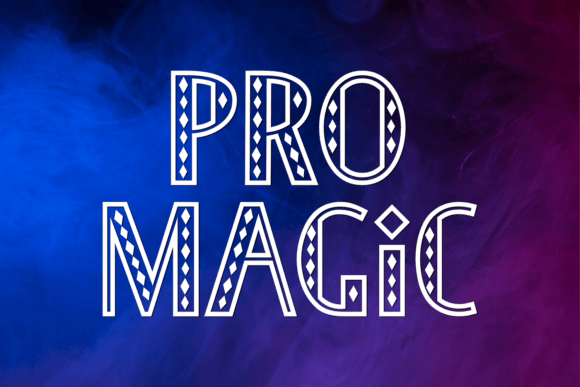
Unleash the sorcery of Pro Magic, a captivating decorative font that will infuse your designs with an enchanting aura. Journey into a realm of visual enchantment, where letters dance with a whimsical charm, captivating your audience with their spellbinding allure. Pro Magic is the ultimate font for conjuring posters with titles that leap off the page, demanding attention and igniting imaginations.
With Pro Magic, the ordinary becomes extraordinary. Transform your designs into captivating works of art, alive with an ethereal beauty that will leave viewers breathless. Its enchanting characters weave a tapestry of visual wonder, drawing eyes and hearts alike into the captivating world you create.
Pro Magic is more than just a font; it's an expression of boundless creativity, a gateway to a realm where imagination reigns supreme. Elevate your designs to new heights, capture the essence of magic, and leave an indelible mark on the minds of those who behold your creations.
Dive into the enchantment of Pro Magic and discover a font that will make your designs shine brighter than a thousand stars. Its intricate details, graceful curves, and playful spirit will spark a sense of wonder and awe in all who encounter it.
With Pro Magic at your fingertips, the possibilities are endless. Weave spells of visual delight, craft enchanting invitations, design captivating social media posts, and create marketing materials that cast an irresistible spell on your audience. Let Pro Magic be your creative companion, guiding you through a journey of boundless inspiration and imagination.